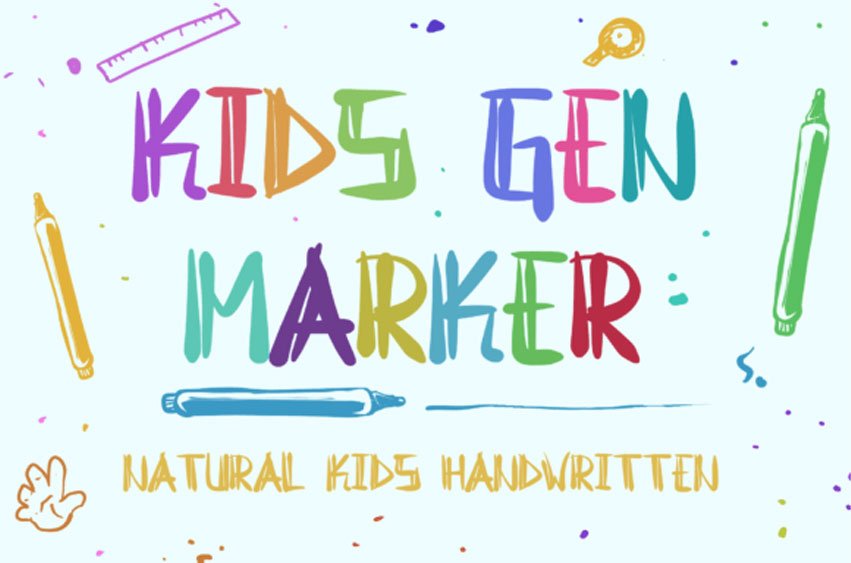
Kids Gen Marker Font is an original and natural display font that resembles kids’ writing.
This quirky typeface is great for packaging, advertising, crafting, merchandise, banner posters, titles, book covers, tote bags, and other designs. Make your design more natural with Kids Gen Marker!